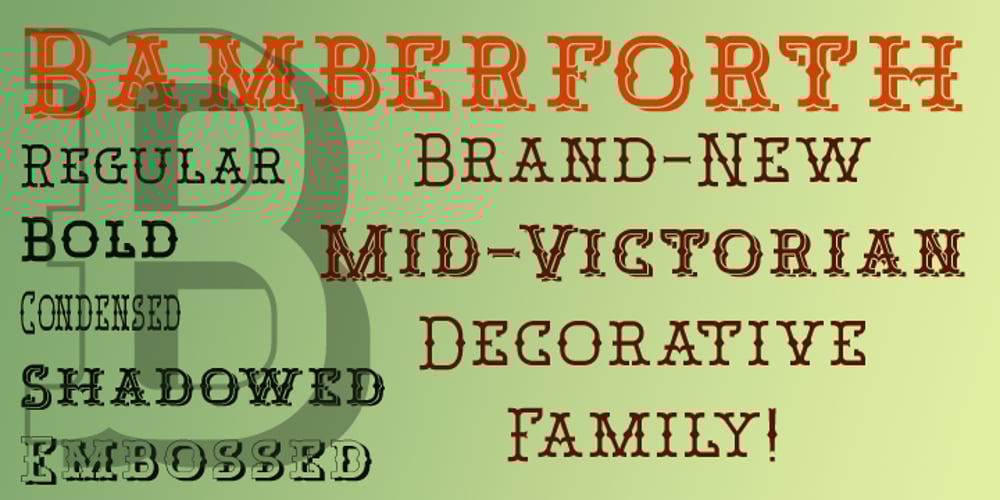
Bamberforth Font Family was designed by published by Greater Albion Typefounders. Bamberforth contains 5 styles and family package options. Bamberforth is a new take on the type of lettering that was often seen on Railway timetables, share certificates and anything else that needed a distinctive heading in the mid-19th Century. This sort of thing was used on both sides of the Atlantic and can carry us back to another time. Bamberforth aims to give a modern clarity to a style of lettering that, in all other particulars, harks straight back to Victorian times. Bamberforth is ideal for giving anything a 19th century feel-especially posters, book headings, dust jackets and invitations.